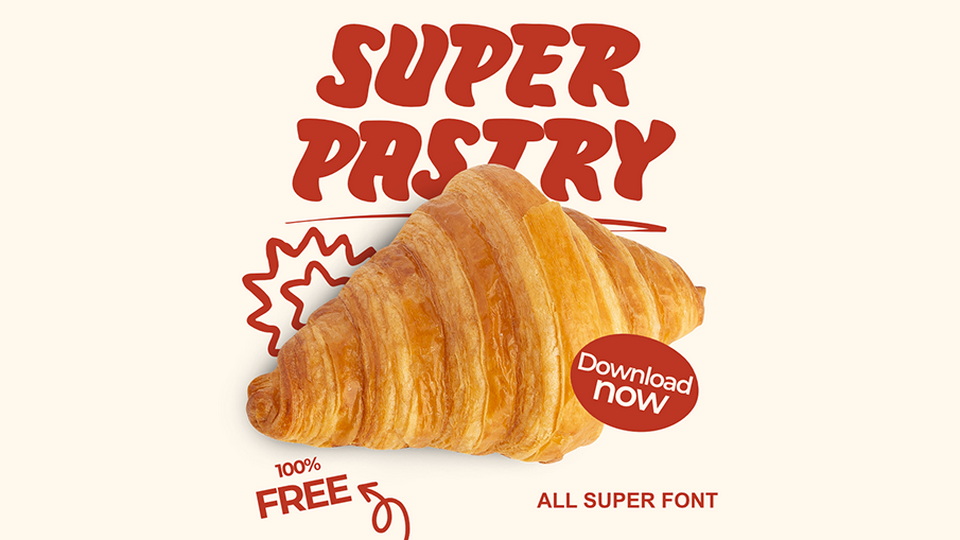
Download Super Pastry font, a playful and dynamic hand-crafted typeface that dances with its slanted letters bringing a sense of movement and rhythm.